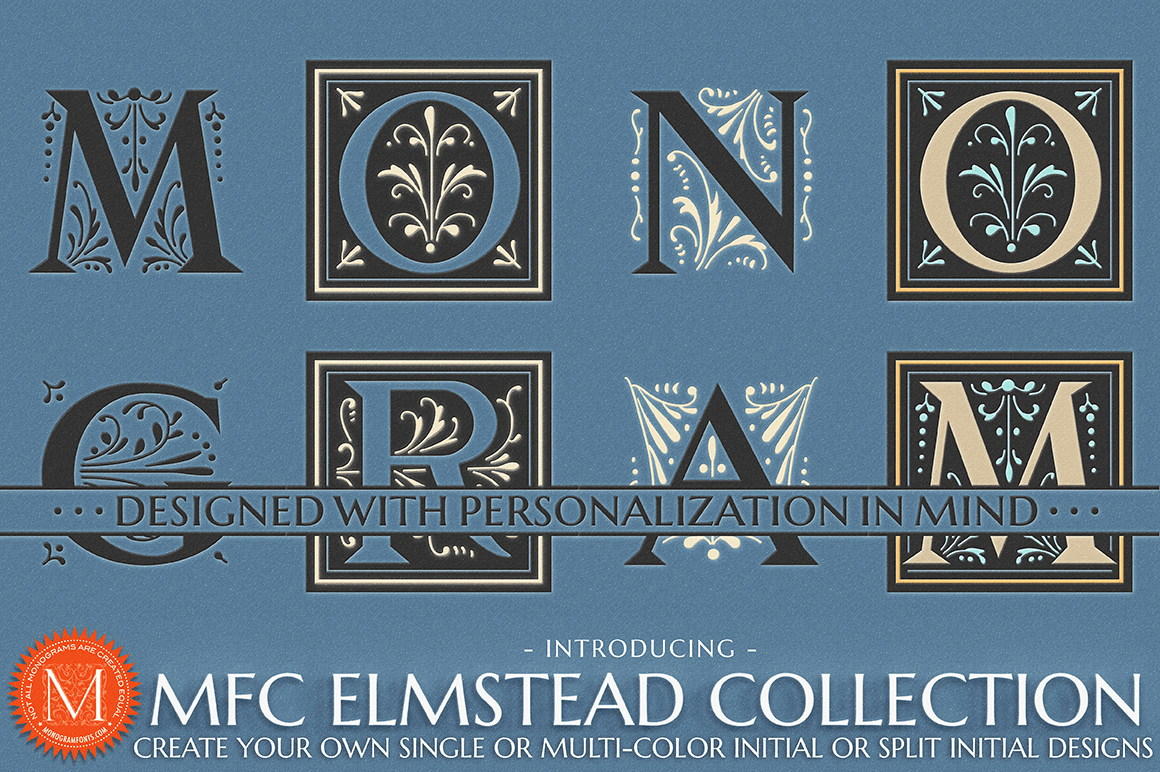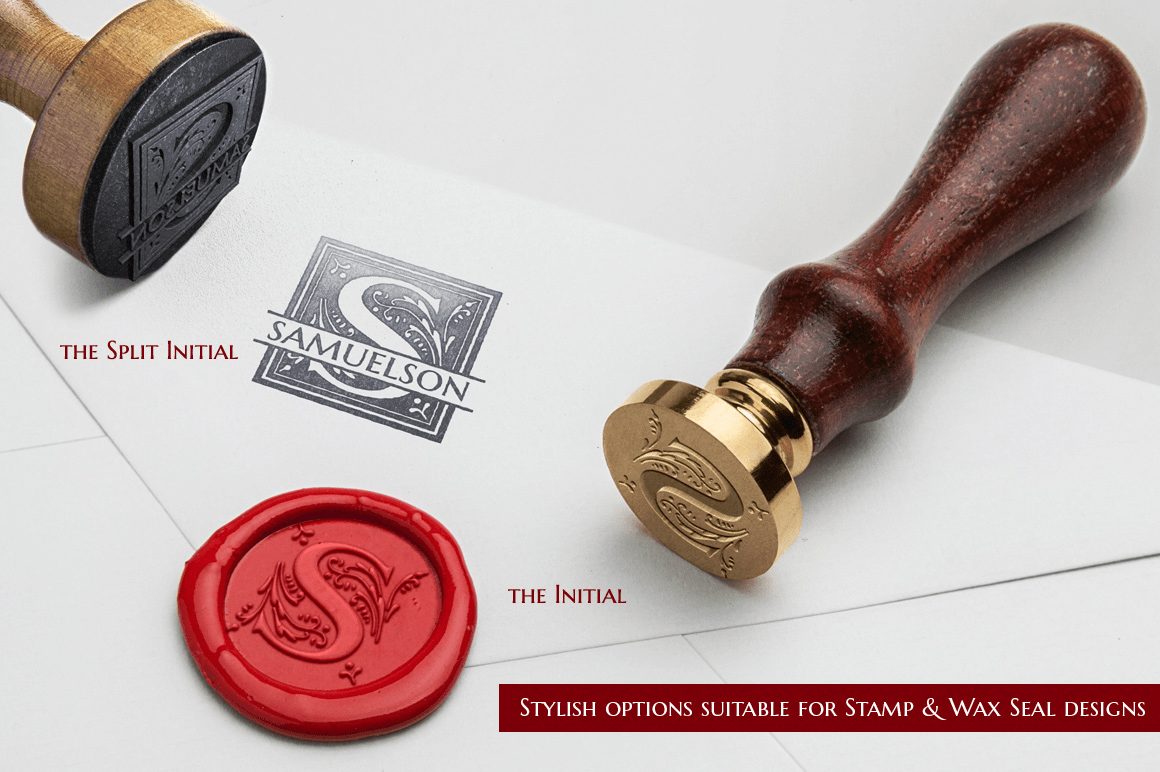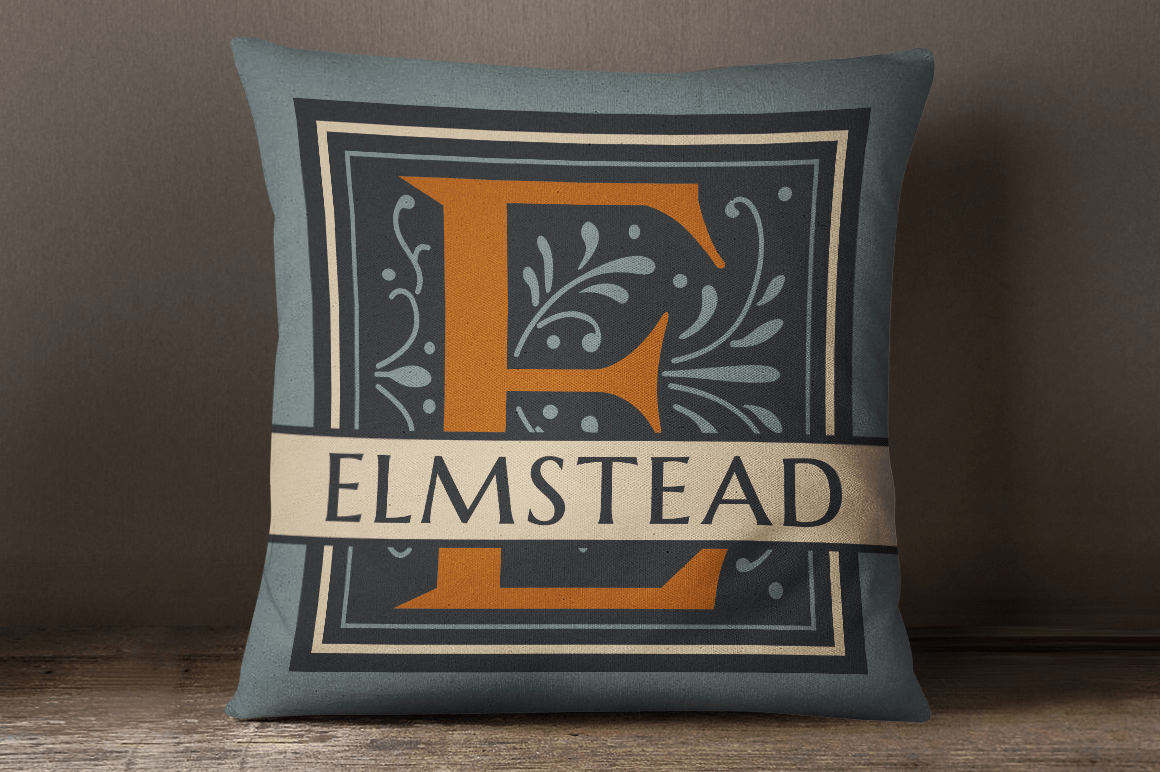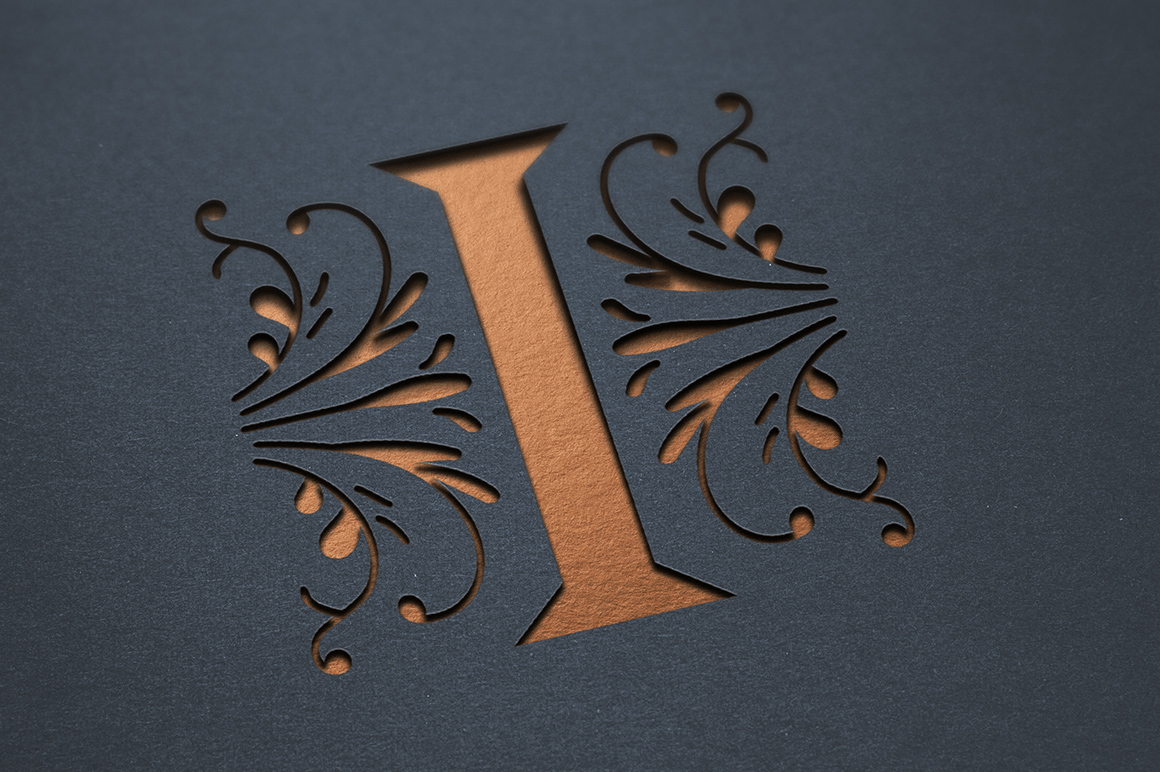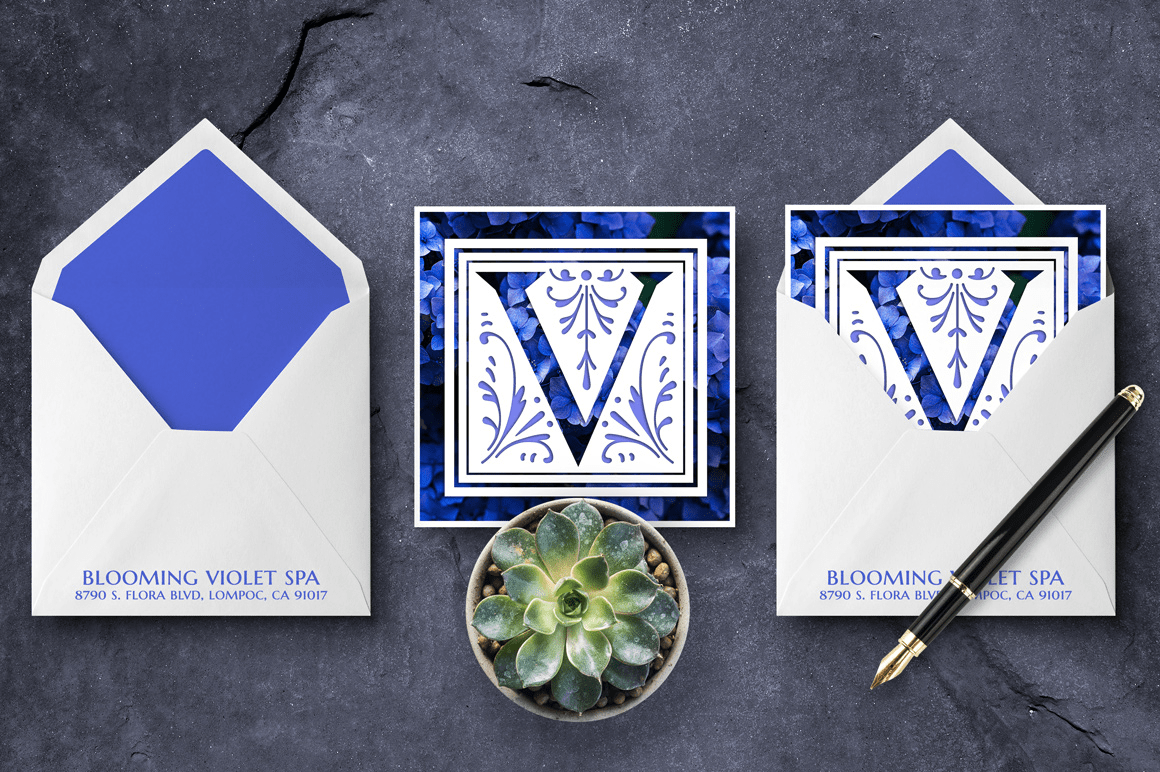
MFC Elmstead
Buy NowThe source of inspiration for MFC Elmstead is an initials set from the book "Monograms and Alphabets for Combination" by Dollfus, Mieg & Cie, first published in the 1880's. We've taken the original Cameo styled initials that had a somewhat clumsy weighting and rebuilt the design using the capitals from Marcellus Pro by our sister foundry, Stiggy & Sands. We've extended the family by including both a Cameo and Non-Cameo version of the Initials, as well as Chromatic versions that can be layered to colorize the designs.
But we couldn't leave it as just an initial typestyle, so we took it a another step, and created Split Monogram Initials with bar splits & extensions for personalization, with the same chromatic set of layers as the full initials version. For filling in the split, we've created a custom limited version of Marcellus Pro, called MFC Elmstead TinyCap, that contains small caps, numerals, and basic punctuation - scaled down and lined up to layer with the MFC Elmstead Split group of fonts.
MFC Elmstead has loads of different ways in which to layer the different fonts in this collection to create unique custom designs.